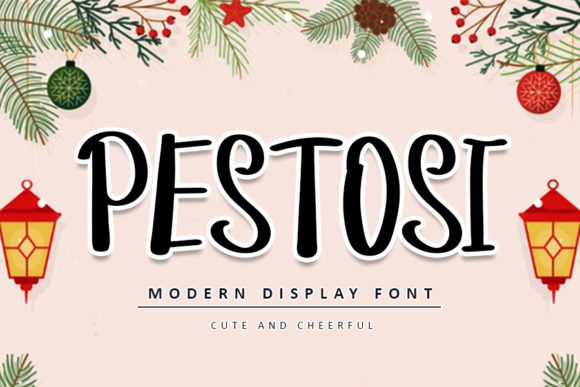
Journey into the world of Pestosi Font, a captivating display font designed by FL Space, that will ignite your creativity and transform your designs into captivating masterpieces. This enchanting font family is meticulously crafted to provide a unique and charming touch to your digital projects, making them stand out from the ordinary.
With its playful and quirky personality, Pestosi Font adds a touch of whimsy to your designs, inviting viewers to engage and explore. Its distinct letterforms, adorned with playful curves and unexpected flourishes, create a visual symphony that dances across the screen. Whether you're designing for web, print, or mobile applications, Pestosi Font will elevate your creations with its undeniable charm.
Embrace the versatility of Pestosi Font and unlock a world of possibilities. Its carefully balanced strokes and generous proportions make it a perfect choice for headlines, logos, branding, posters, social media graphics, and any project seeking a touch of playfulness. Experience the joy of creating designs that resonate with your audience, leaving a lasting impression.
Pestosi Font's unwavering legibility, even at smaller sizes, makes it an exceptional choice for mobile design. Its crisp and clear letterforms ensure readability across various devices, captivating your audience with its charm, no matter where they encounter your designs. Unleash the power of Pestosi Font to craft user interfaces and mobile applications that captivate and engage users, leaving them wanting more.
Dive into the realm of Pestosi Font and discover a font that embodies creativity, charm, and versatility. With its playful spirit and unwavering legibility, this font is the perfect companion for designers seeking to create captivating designs that leave a lasting impression. Embrace the endless possibilities of Pestosi Font and transform your digital creations into works of art that ignite joy and admiration.